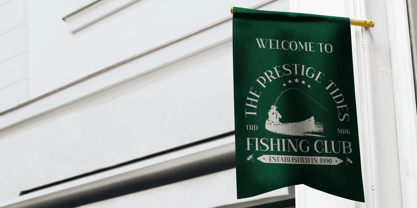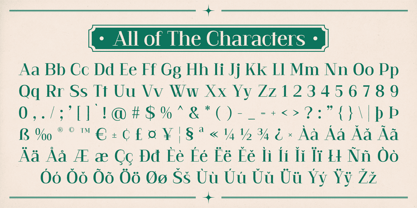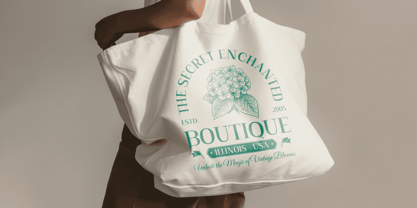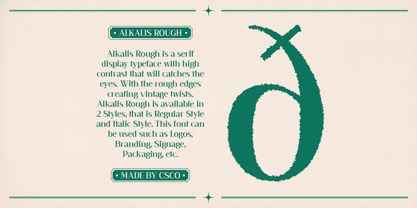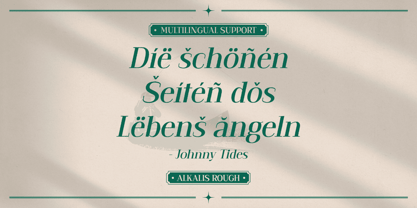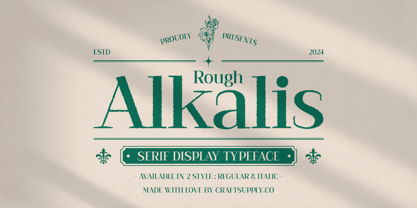
Alkalis Rough
Die Schriftfamilie Alkalis Rough wurde von Trio Nazzar Saputra, Wahyu Hadi Yuana entworfen und von Craft Supply Co veröffentlicht. Alkalis Rough enthält 2 Stile und Familienpaketoptionen. Mehr über diese Familie
Alkalis Rough Font: Elegance with a Modern Edge
Minimalist Shapes with a Subtle Rough Effect
Alkalis Rough is a modern serif font that marries clean, minimalist shapes with a subtle rough effect, creating a design that feels both refined and distinctive. Its smooth lines and well-balanced proportions exude simplicity and sophistication, making it a versatile choice for a wide range of design projects. The added rough texture introduces a layer of uniqueness, giving the font a creative edge without sacrificing its elegance.
Elegant Yet Distinctive Aesthetic
The contrast between the font’s minimalist design and the rough texture adds a subtle yet impactful character to Alkalis Rough, ensuring that your designs stand out with style. It carries a graceful and poised appearance, perfect for projects that require a balance of modern sophistication and artistic flair. The texture brings warmth and personality, making it ideal for designs that wish to go beyond the conventional.
Perfect for Branding, Editorials, and Invitations
Alkalis Rough’s timeless elegance and artistic edge make it an excellent choice for branding, editorials, and invitations. Whether you’re looking to elevate a high-end brand identity, craft an eye-catching editorial layout, or design invitations with a touch of modern creativity, this font offers the perfect blend of refinement and uniqueness.